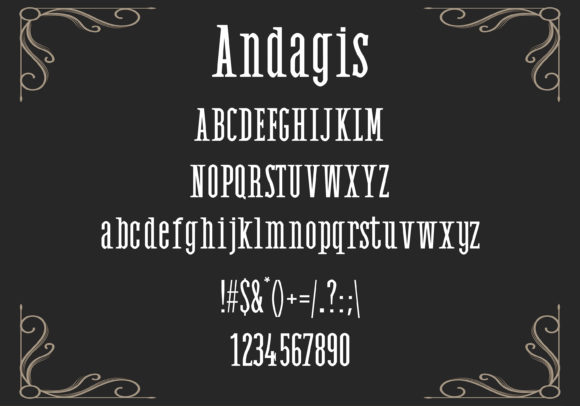
Introducing Andagis Font: The Ultimate Choice for Bold and Eye-Catching Designs
Are you a designer or craftsperson looking for a font that can help you create stunning logos, branding, and quotes? Look no further than Andagis Font. This bold and simple serif font is taking the design world by storm, and for good reason. In this article, we’ll dive into the features and benefits of Andagis Font, and explore why it’s the perfect choice for your next design project.
What is Andagis Font?
Andagis Font is a bold and simple serif font that is designed to make a statement. Its clean lines, classic serif style, and bold weight make it the perfect choice for creating eye-catching logos, branding, and quotes. Whether you’re working on a new business venture, a personal project, or a client’s design brief, Andagis Font is sure to impress.
Key Features of Andagis Font
- Bold and Simple Design: Andagis Font features a bold and simple design that is easy to read and understand. Its clean lines and classic serif style make it a versatile font that can be used in a variety of design contexts.
- Serif Style: The serif style of Andagis Font adds a touch of elegance and sophistication to any design. The subtle curves and lines of the font create a sense of refinement and luxury.
- Highly Legible: Andagis Font is highly legible, even at small sizes. This makes it perfect for use in a variety of design applications, from logos and branding to quotes and posters.
- Multilingual Support: Andagis Font supports multiple languages, making it a great choice for designers who work with international clients or need to create designs for global audiences.
Benefits of Using Andagis Font
So why choose Andagis Font for your next design project? Here are just a few benefits of using this amazing font:
- Create Eye-Catching Logos and Branding: Andagis Font is perfect for creating bold and eye-catching logos and branding. Its clean lines and classic serif style make it a versatile font that can be used in a variety of design contexts.
- Stand Out from the Crowd: With Andagis Font, you can create designs that stand out from the crowd. Its bold and simple design makes it perfect for use in quotes, posters, and other design applications where you want to make a statement.
- Easy to Read and Understand: Andagis Font is highly legible, even at small sizes. This makes it perfect for use in a variety of design applications, from logos and branding to quotes and posters.
- Save Time and Effort: With Andagis Font, you can create stunning designs in no time. Its clean lines and classic serif style make it easy to use and pair with other fonts.
How to Use Andagis Font
Using Andagis Font is easy. Here are a few tips to get you started:
- Pair it with Other Fonts: Andagis Font pairs well with a variety of other fonts. Try pairing it with a sans-serif font for a bold and modern look, or with a script font for a more elegant and sophisticated design.
- Use it for Headings and Titles: Andagis Font is perfect for use in headings and titles. Its bold and simple design makes it easy to read and understand, even at small sizes.
- Experiment with Colors and Textures: Andagis Font looks great in a variety of colors and textures. Try experimenting with different colors and textures to create a unique and eye-catching design.
In conclusion, Andagis Font is a bold and simple serif font that is perfect for creating eye-catching logos, branding, and quotes. Its clean lines, classic serif style, and bold weight make it a versatile font that can be used in a variety of design contexts. With its highly legible design, multilingual support, and ease of use, Andagis Font is a great choice for designers and craftspersons who want to create stunning designs that stand out from the crowd.